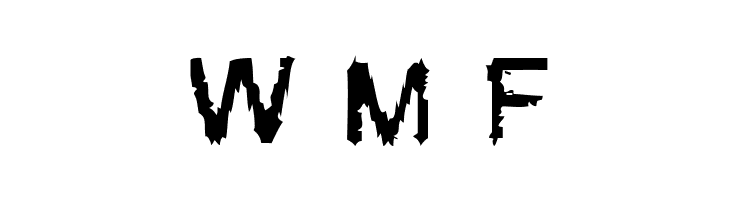
A fiery, bold font with jagged edges and high contrast, perfect for dramatic designs.
A dripping, horror-themed font with jagged, melting characters.
A wild and chaotic font with jagged, stitched-like characters.
A bold, horror-themed font with dripping, jagged characters.
A bold, jagged font with a playful, energetic style.
A bold, jagged font with sharp, angular shapes for an edgy look.
A bold, jagged, and dynamic brush-style font with an aggressive edge.
A rugged, jagged font with a distressed, edgy appearance.
A jagged, edgy font with a chaotic and dynamic appearance.
A bold, distressed font with a grunge aesthetic and jagged edges.
A bold, angular font with a dynamic, jagged design.
A jagged, electrifying font with dynamic, sharp edges.
A bold, rugged font with jagged edges and a distressed, grungy style.
A bold, distressed font with a glitch effect, featuring jagged edges and irregular strokes.
A distressed, chaotic font with jagged edges and a grunge aesthetic.
A playful, cut-out style font with bold, jagged edges.
A jagged, eerie font with sharp edges and a gothic, hand-drawn style.
A jagged, gothic font with sharp, thorn-like characters.
A sharp, jagged font with elongated, tooth-like characters for a bold, edgy look.
A jagged, eerie font with sharp, needle-like edges and a dripping effect.
A sharp, jagged font with an intense, dramatic style.
A creepy, jagged font with a horror-inspired, dripping aesthetic.
A decorative, alien-themed font with jagged, organic forms and a mysterious aesthetic.
A bold, jagged font with an icy, dynamic appearance.
A decorative, gear-like font with intricate, jagged edges.
A bold, jagged font with sharp, angular edges and a dynamic, aggressive style.
A bold, jagged, hand-drawn font with an edgy and energetic style.
A bold, jagged, and distressed decorative font with a chaotic and intense style.
A bold, edgy font with sharp, jagged edges resembling claw marks.
A bold, distressed font with jagged, chaotic strokes and a grunge aesthetic.
A sketch-like, hand-drawn font with dynamic, jagged strokes.
A bold, jagged font with an edgy, chaotic style.
A bold, jagged font with sharp angles and an energetic, primitive style.
A jagged, medieval-inspired font with sharp, torn edges.